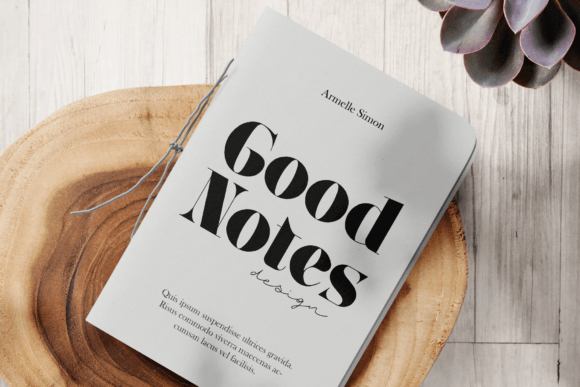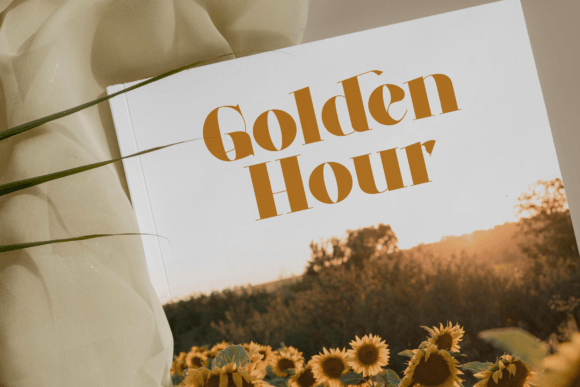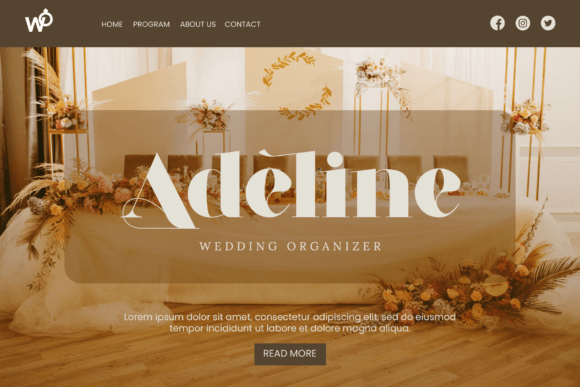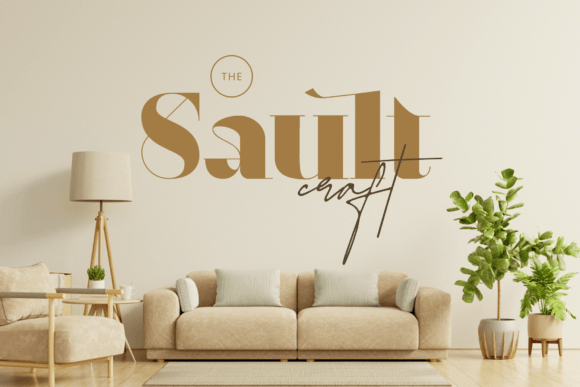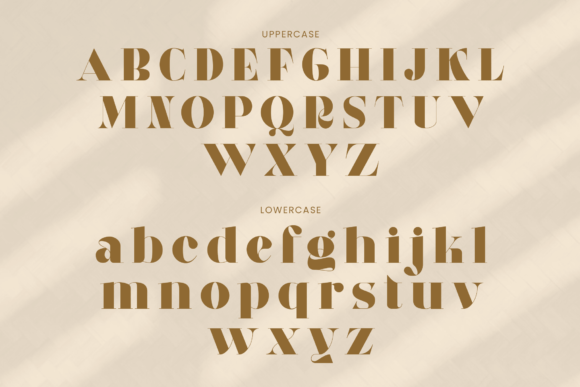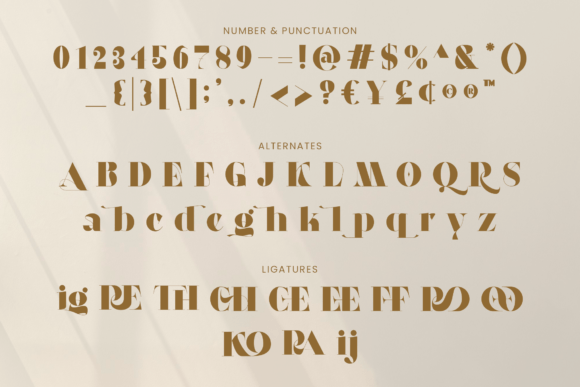
The Eloora Font: A Design Game-Changer for Bold and Elegant Projects
I’ll never forget the struggle I faced while working on a wedding invitation project. My client wanted a font that exuded elegance, sophistication, and a touch of boldness. I scoured the internet, tried countless fonts, but nothing seemed to fit the bill. That was until I stumbled upon the Eloora font. It was love at first sight! The high-contrast bold serif typeface seamlessly combined boldness with elegance, providing the perfect design solution for my client’s brand. In this article, I’ll share my experience with Eloora, its features, and how to make the most of it in various design platforms.
An Honest Review of Eloora Font
What I Love About Eloora ✨
- 💥 **High-contrast bold serifs**: Eloora’s unique design makes it stand out from other fonts. The bold serifs add a touch of sophistication to any design project.
- ✅ **Versatility**: Eloora is perfect for a wide range of design projects, including branding, logos, wedding designs, social media posts, advertisements, product packaging, and more.
- 📝 **Elegant and bold**: The font’s elegant and bold features make it ideal for projects that require a touch of luxury and sophistication.
- 👍 **Easy to read**: Despite its boldness, Eloora remains easy to read, even in smaller font sizes.
- ⚠️ **Limited use in body text**: While Eloora is perfect for headings and titles, it may not be the best choice for body text due to its boldness.
- 🤔 **Requires careful kerning**: As with any font, careful kerning is necessary to ensure that Eloora looks its best, especially in larger font sizes.
The Story Behind Eloora Font
Eloora font was designed with the goal of creating a bold and elegant typeface that would add a touch of sophistication to any design project. The designer, inspired by classic serif fonts, aimed to create a font that would be both bold and refined. After months of careful design and testing, Eloora was born.
Q: What is Eloora font best used for?
A: Eloora font is perfect for branding projects, logos, wedding designs, social media posts, advertisements, product packaging, product designs, labels, photography, watermarks, invitations, stationery, and any projects that need a handwriting taste.
Q: Is Eloora font suitable for body text?
A: While Eloora is a beautiful font, it may not be the best choice for body text due to its boldness. It’s better suited for headings and titles.
Q: Is Eloora font easy to read?
A: Yes, despite its boldness, Eloora font remains easy to read, even in smaller font sizes.